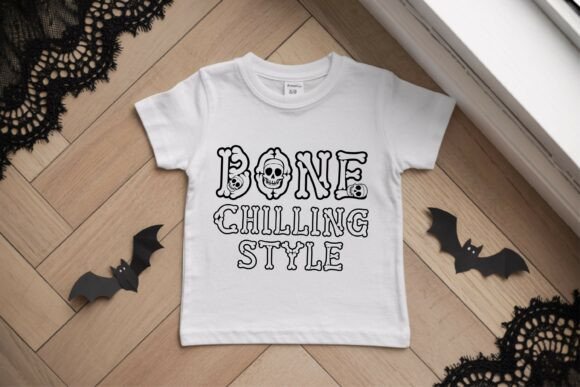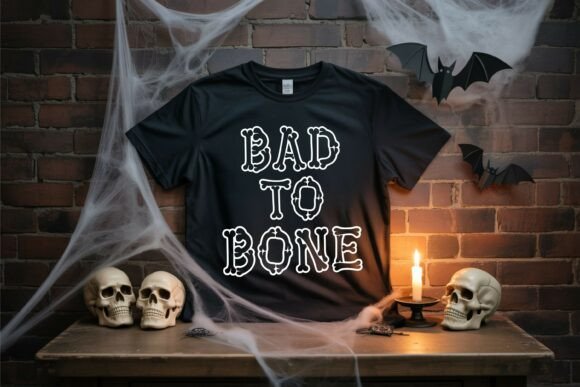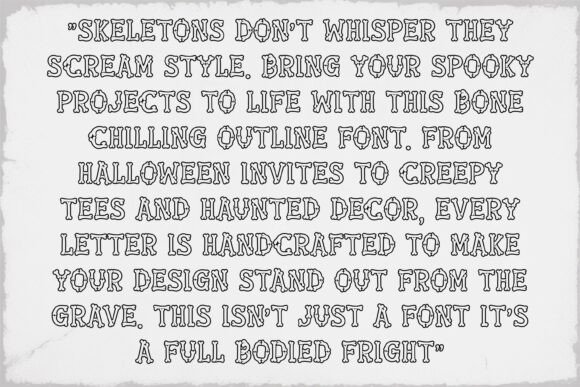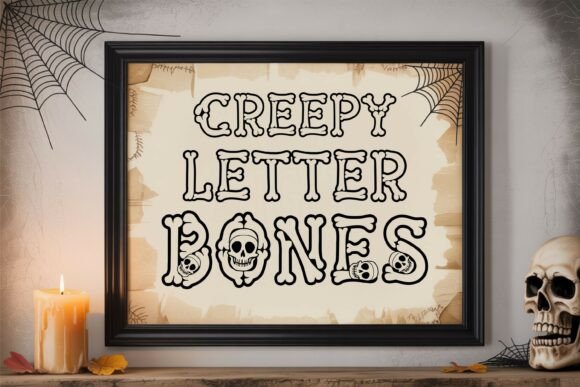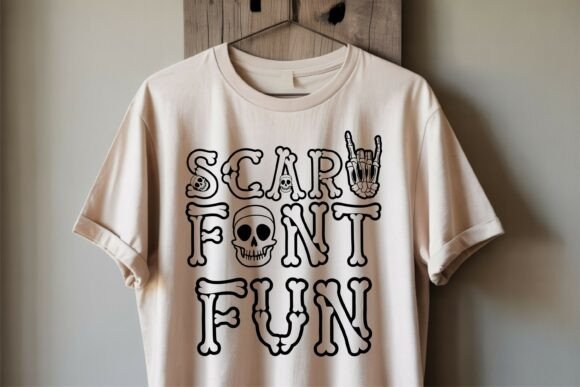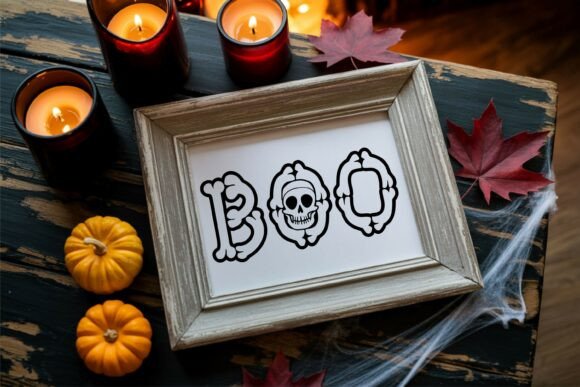
Unleash the Spooky Charm with Bone Outline Font
What is Bone Outline Font?
Bone Outline Font is a unique and eye-catching font that features skeletal-style alphabets and whimsical bone embellishments. This font is designed to bring life to eerie phrases, party invites, and haunted house aesthetics, making it an ideal choice for Halloween-themed projects. The font’s outline style gives it a distinctive look that is both spooky and sophisticated.
Key Features of Bone Outline Font
- Skeletal-style alphabets: The font features skeletal-style alphabets that are perfect for creating spooky and eerie designs.
- Whimsical bone embellishments: The font includes whimsical bone embellishments that add a touch of playfulness to your designs.
Uses of Bone Outline Font
The Bone Outline Font is a versatile font that can be used for a wide range of projects, including:
- Halloween-themed crafts: The font is perfect for creating spooky and eerie designs for Halloween-themed crafts, such as party invites, decorations, and costumes.
- Signage: The font can be used to create eye-catching signs for businesses, events, and more.
- Apparel: The font can be used to create spooky and stylish designs for t-shirts, hoodies, and other apparel.
- Coffee mugs: The font can be used to create unique and spooky designs for coffee mugs.
- Haunted house aesthetics: The font can be used to create spooky and eerie designs for haunted houses and haunted attractions.
Tips for Using Bone Outline Font
Here are some tips for using the Bone Outline Font:
- Experiment with different colors: The font looks great in a variety of colors, so don’t be afraid to experiment and find the perfect color scheme for your project.
- Use it with other fonts: The Bone Outline Font can be paired with other fonts to create unique and interesting designs.
- Take advantage of the outline style: The outline style of the font makes it perfect for creating designs with a bold and striking look.
- Use it for DIY projects: The font is perfect for DIY projects, such as making your own Halloween decorations, party invites, and more.
The Bone Outline Font is a versatile and unique font that is perfect for designers and crafters looking to add a chilling edge to their creations. With its skeletal-style alphabets and whimsical bone embellishments, this font is sure to bring life to your eerie phrases, party invites, and haunted house aesthetics. Whether you’re creating Halloween-themed crafts, signage, apparel, or coffee mugs, the Bone Outline Font is a matchless pick that is sure to impress.